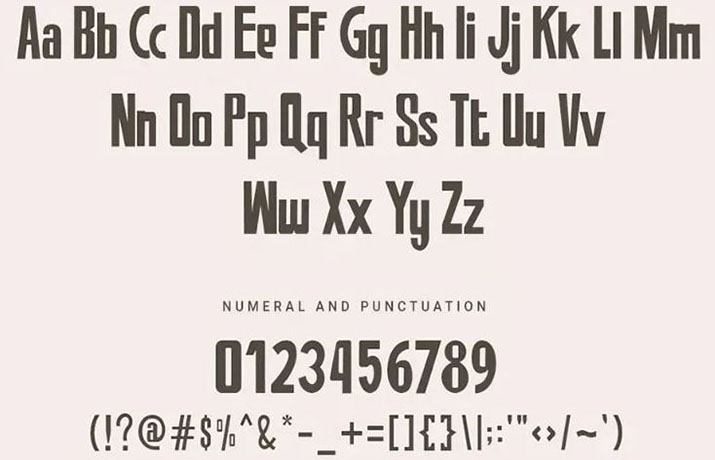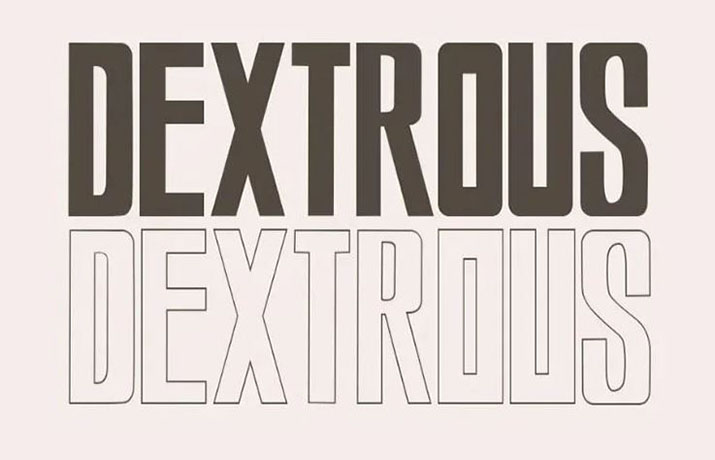
Dextrous Font is an elegant and clean sans serif typeface that combines a classic charm with a modern look. Kong Font took charge of designing and publishing it first.
It features all the features that we found in other sans-serif fonts. But the main feature is its height is extra large, boldness, and rounded edges which makes it unique from the others.
It is perfectly suited to create prestige logos, banners, headers, titles, posters, headlines, and even beautiful wedding invitations. It’s easy to read and looks great on any project.
“Dextrous typeface is available in a single weight along with True Type features. This style contains 357 glyphs and 2 binary stored kerning pairs. Moreover, it also supports 92 multilingual languages.”
Style:Sans Serif, Display, Bold
Font Designer:Kong Font
• You can create book covers, distinctive emblems, game titles, cartoon posters, special event cards, product designs, banners, headers, flyers, signs, movie posters, headlines, brand logos, YouTube thumbnails, banners, headers, signs, display headers, brochures, and many other things with its bold and thick texture.
What is Dextrous Font?
Dextrous Font is an elegant and clean sans serif typeface that combines a classic charm with a modern look. Kong Font took charge of designing and publishing it first.